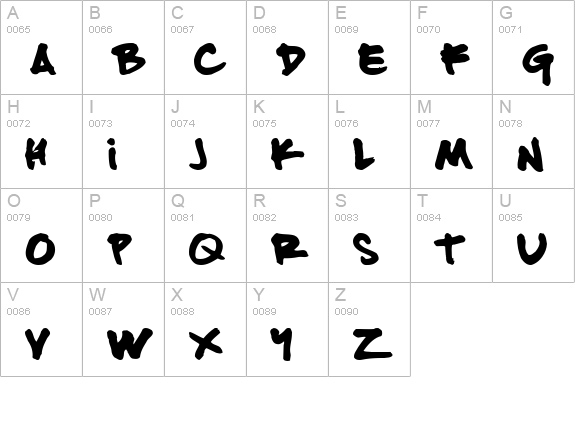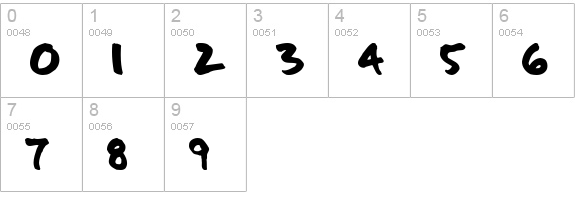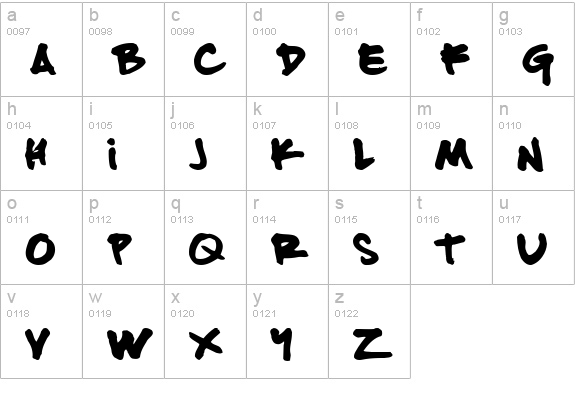
FATTIP Font Details
FATTIP font is a versatile and modern typeface perfect for adding a touch of sophistication to your design projects. With its bold and eye-catching style, FATTIP font is sure to make a statement and grab attention. Whether you're designing a logo, poster, or website, this font will elevate your work to the next level. The best part? FATTIP font is completely free to download at FontsMarket.com. That's right, you can add this stylish font to your collection without spending a dime. Don't miss out on the opportunity to enhance your designs with the unique flair of FATTIP font. Download it today and let your creativity shine!